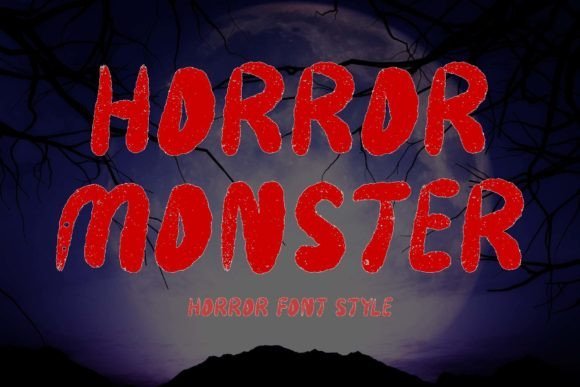
Unleash Your Dark Side with the Horror Monster Font
As a designer, have you ever been brainstorming a new project and suddenly found yourself drawn to a dark, eerie atmosphere? Maybe it’s a Halloween-themed poster or a horror movie title that’s been haunting your dreams. Whatever the case, you’re in luck because we’re about to introduce you to the perfect font to bring your creepy creations to life: the Horror Monster Font.
This scary horror font boasts a unique writing texture with small holes in each letter, giving it a hauntingly realistic feel. With its wide range of characters, including uppercase and lowercase letters, numerals, punctuation, and multilingual support, the Horror Monster Font is the perfect tool for designers looking to add a touch of darkness to their projects. Whether you’re working on a spooky poster or a thriller movie title, this font is sure to make your designs stand out.
Horror Monster Font Key Features
- Font Family: A unique, horror-themed font designed to evoke fear and unease.
- Unique Characteristics: Distinctive, hand-drawn style with bold lines and eerie details, creating an immersive horror experience.
Review of Horror Monster Font
Overall, I have mixed feelings about the Horror Monster Font. It’s a unique and creative font that could be perfect for certain projects.
- Unique and creative design: The font has a distinct, eerie feel that’s perfect for horror-themed projects or designs that need a touch of the supernatural.
- Good for eye-catching titles: The font is bold and attention-grabbing, making it ideal for titles or headings that need to stand out.
- Limited versatility: The font is best suited for horror-themed projects or designs that need a dark, eerie feel. It may not be the best choice for more general or light-hearted projects.
- May be difficult to read in smaller sizes: The font’s bold design can make it difficult to read in smaller sizes, which may limit its use in certain contexts.
- Not suitable for body text: The font is best used for titles and headings, as it can be difficult to read in large blocks of text.
In conclusion, the Horror Monster Font is a unique and creative font that’s perfect for certain projects. While it has some limitations, it’s a great choice for designers who want to add a touch of the supernatural to their designs.
The Horror Monster Font is perfect for:
- Spooky-themed designs and invitations
- Horror movie posters and trailers
- Haunted house and theme park branding
- Creepy social media graphics and ads
For a truly terrifying effect, try combining the Horror Monster Font with:
- Creepy imagery and graphics
- Dark color schemes and lighting effects
- Distressed
Alternatives to Horror Monster Font
Creepster
Creepster is a distressed, hand-drawn font that evokes a sense of eerie mystery. It’s perfect for creating a spooky atmosphere in horror-themed designs, such as posters, flyers, or website headers. Compared to Horror Monster Font, Creepster has a more refined, elegant look that still conveys a sense of eeriness.
Blood and Bacon
Blood and Bacon is a grotesque, hand-drawn font that’s ideal for creating a dark, unsettling vibe in horror-themed designs. It’s a bit more extreme than Horror Monster Font, with a more aggressive, unsettling feel that’s perfect for creating a sense of tension.